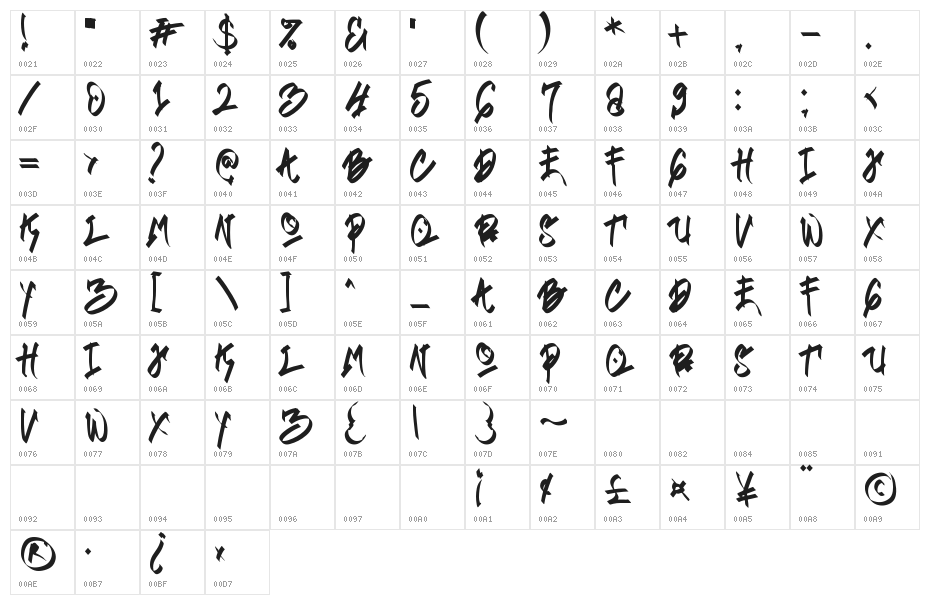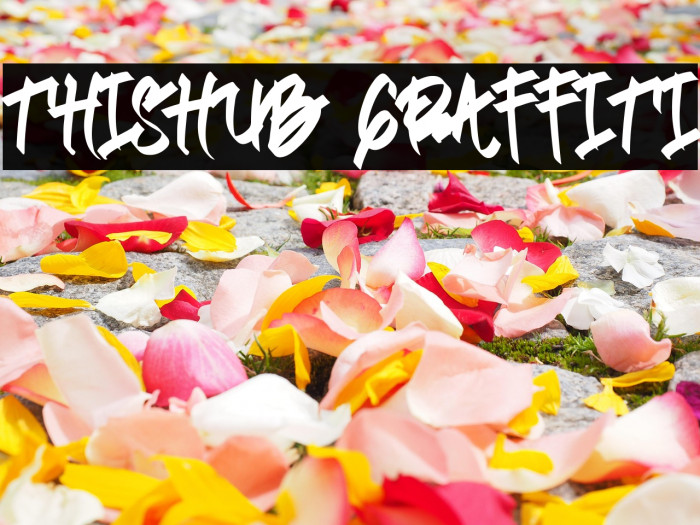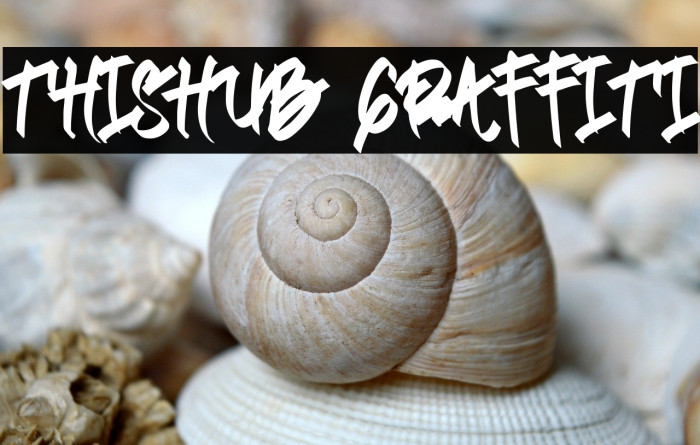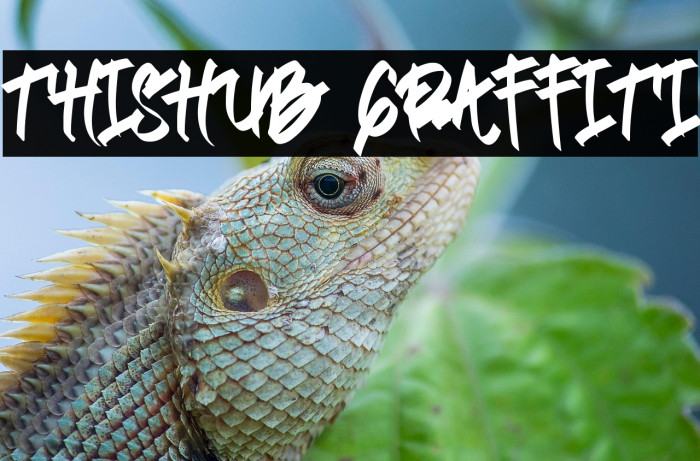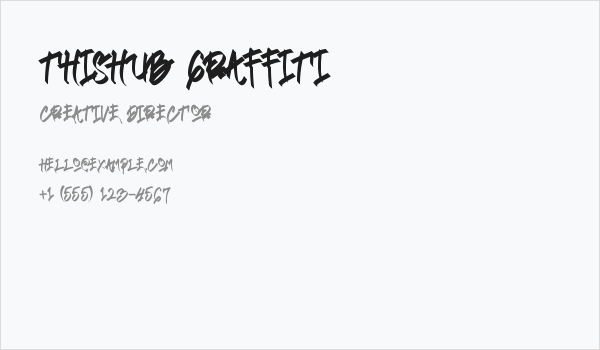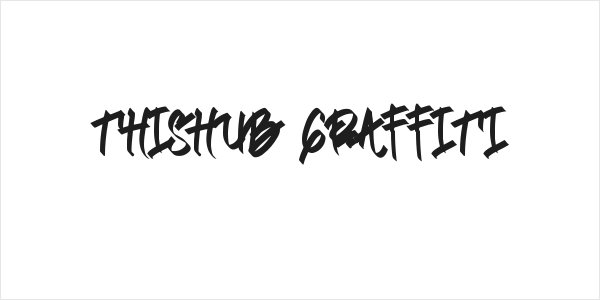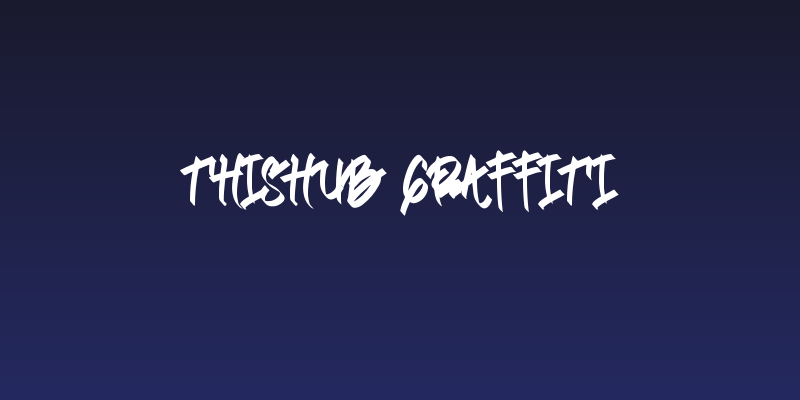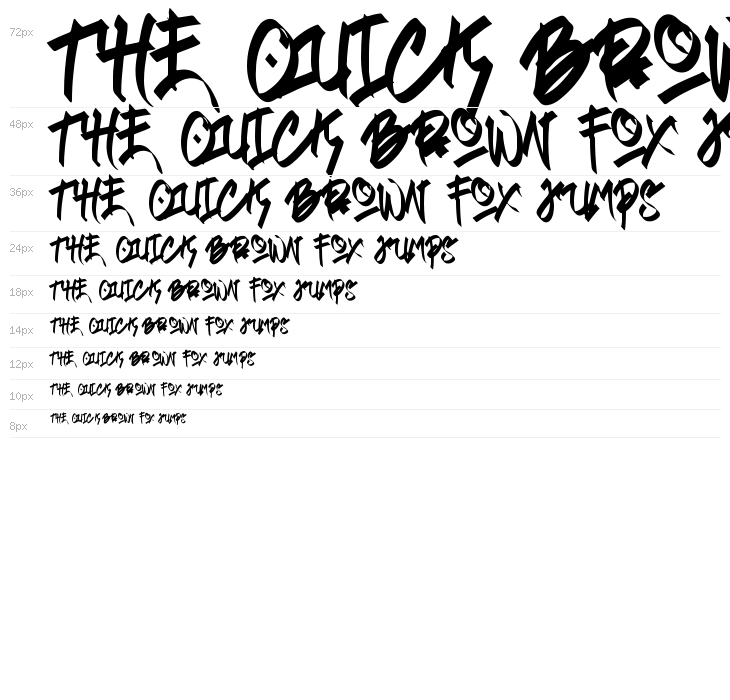
Thishub Graffiti Font
Thishub Graffiti Description
This dynamic and expressive font captures the essence of urban street art with its bold, graffiti-inspired design. Each character is crafted with a sense of movement and energy, featuring sharp angles and fluid strokes that mimic the style of spray paint. The uppercase and lowercase letters maintain a consistent style, while the numbers and special characters integrate seamlessly, adding to the font's versatility. Its edgy and rebellious aesthetic makes it perfect for projects that aim to convey a sense of modernity and creativity.
| Proposed Projects | Ideal for streetwear branding, music album covers, urban event posters, and digital art projects. |